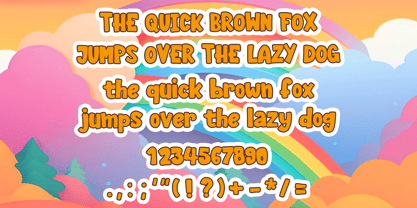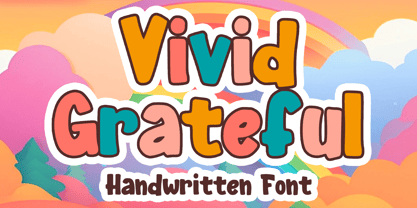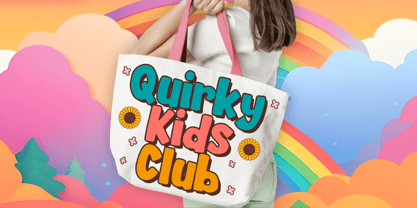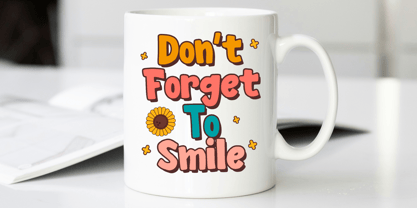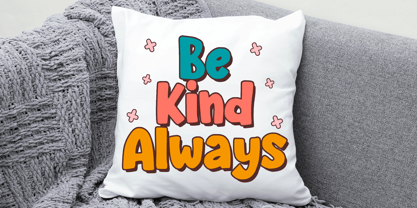
Vivid Grateful
The Vivid Grateful Font Family was designed by Gabriel Valentinus and published by Mvmet. Vivid Grateful contains 1 styles. More about this family
Introducing Vivid Grateful, a whimsically bold display font that effortlessly enhances any design project. Its playful and exuberant character transforms ordinary designs into striking masterpieces. Whether adorning stickers, creating captivating t-shirt designs, crafting unique logos, or designing standout magazine and book covers, Vivid Grateful breathes life into your creative journey. This versatile font is perfect for comics, cartoon illustrations, and everyday typing, weaving magic into all aspects of design. Experience the superb flair that Vivid Grateful brings to your creations!